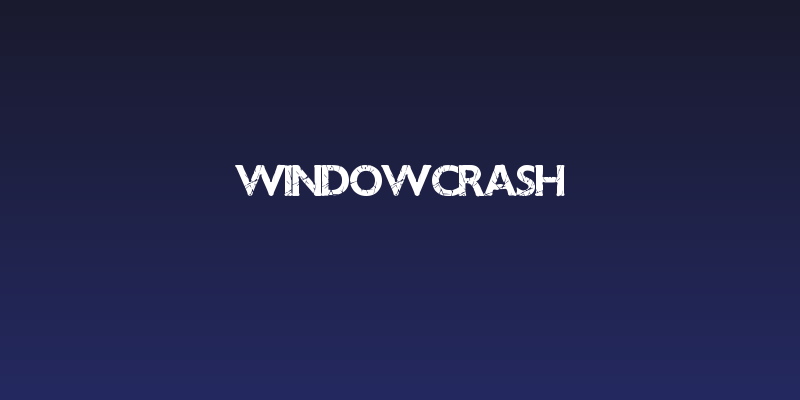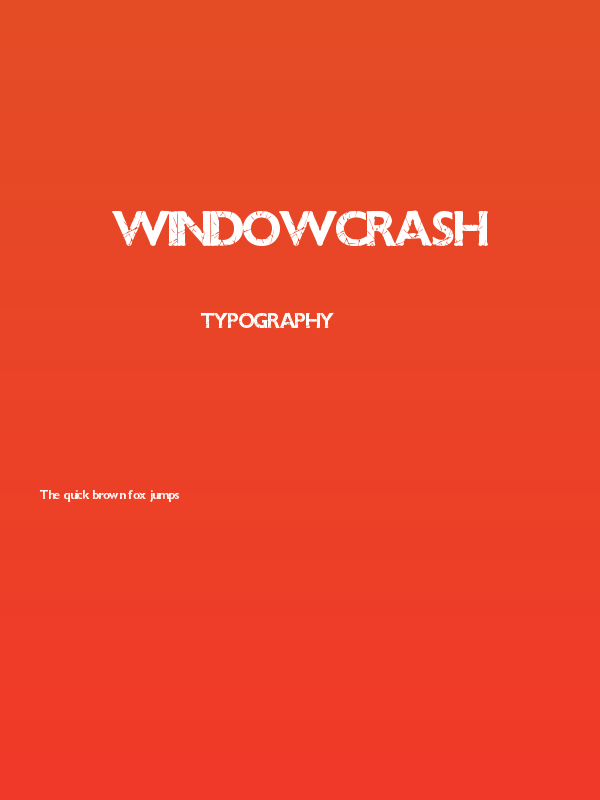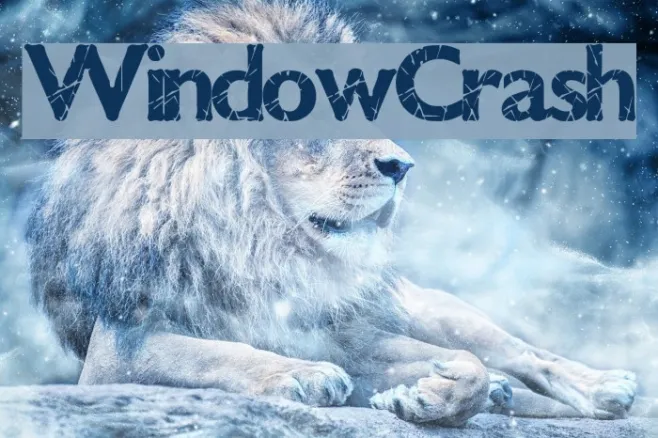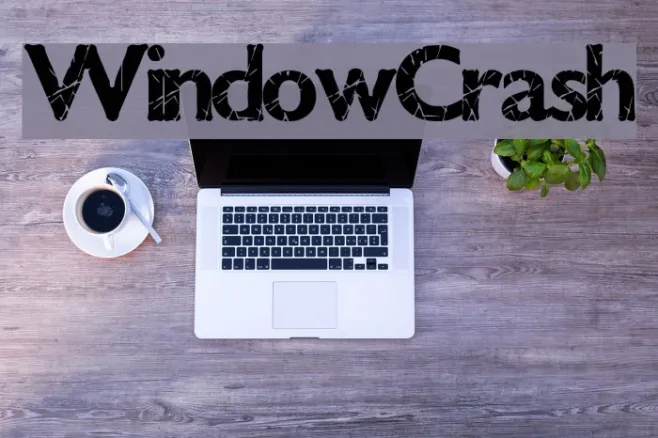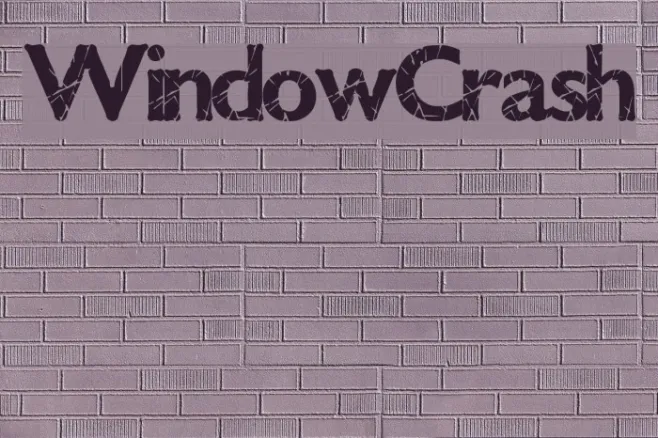
WindowCrash Font
WindowCrash Description
This font features a unique shattered glass effect, giving each character a fragmented and edgy appearance. The uppercase and lowercase letters, as well as numbers and special characters, maintain a consistent style with jagged edges and irregular shapes. The design is bold and eye-catching, making it suitable for projects that require a dramatic and impactful visual element. The font's distinct style is ideal for creative and artistic applications, where a sense of chaos or disruption is desired. Its decorative nature makes it less suitable for body text but perfect for headlines or logos that need to stand out.
WINDOWCRASH UPPERCASE
WINDOWCRASH LOWERCASE
WINDOWCRASH OTHER CHARS
| Proposed Projects | Ideal for posters, album covers, event flyers, or any project needing a dramatic, edgy look. |